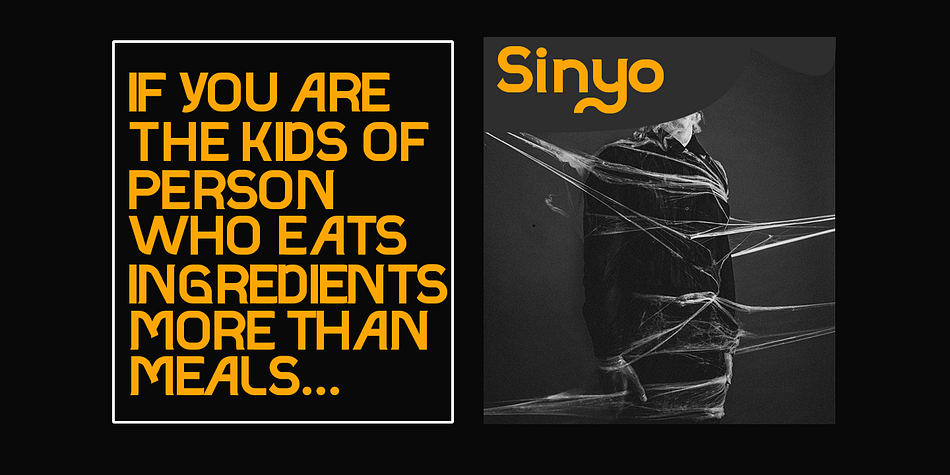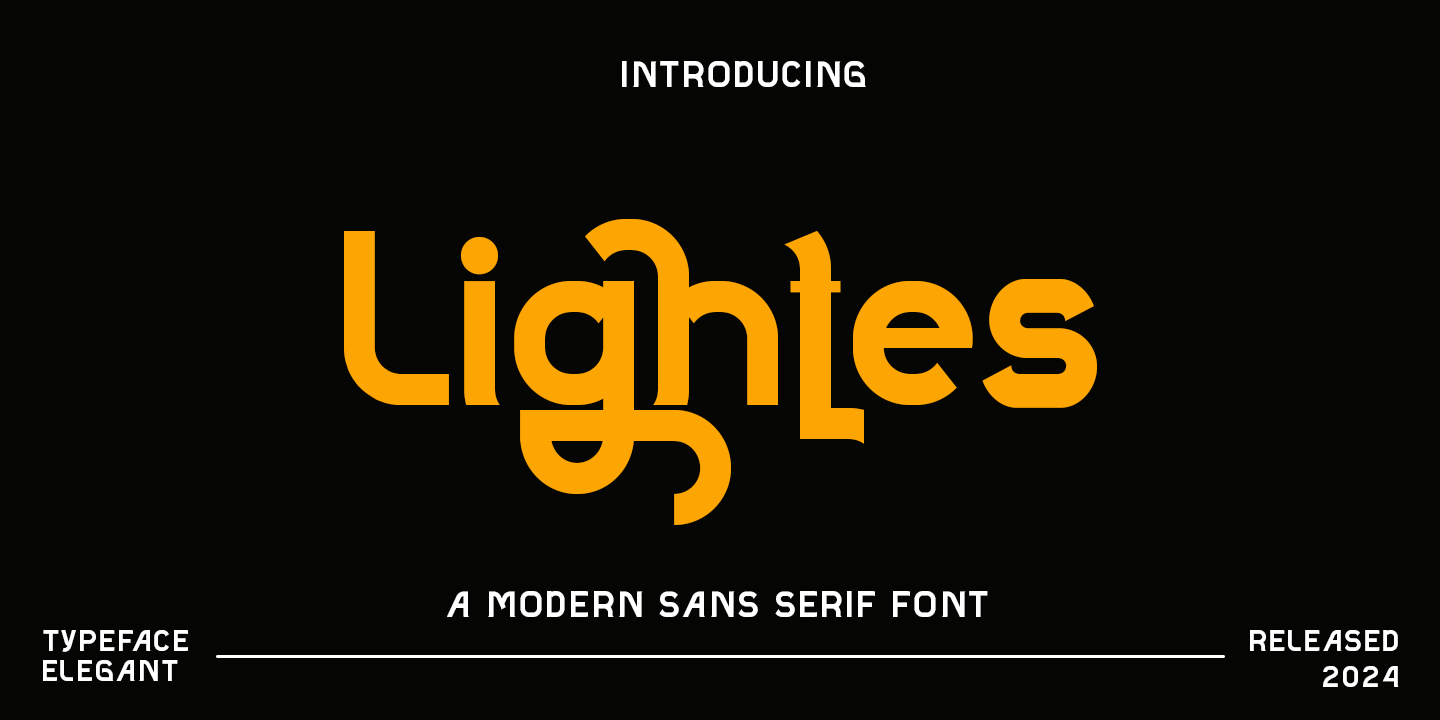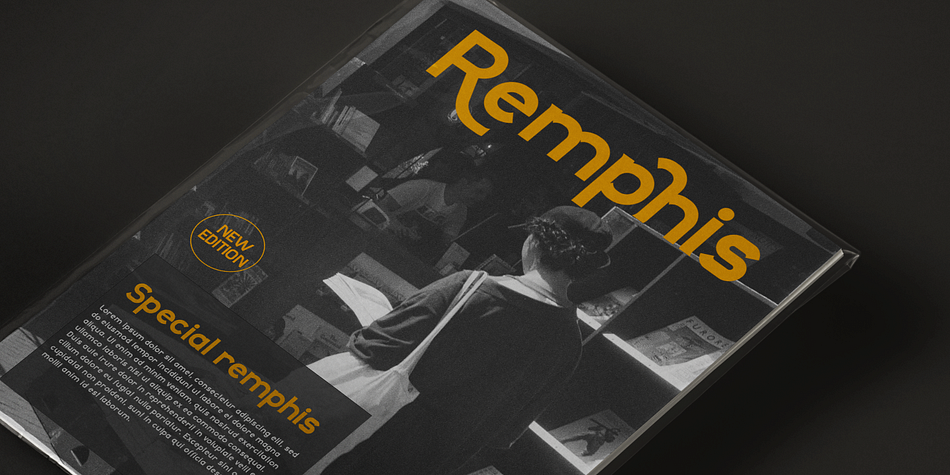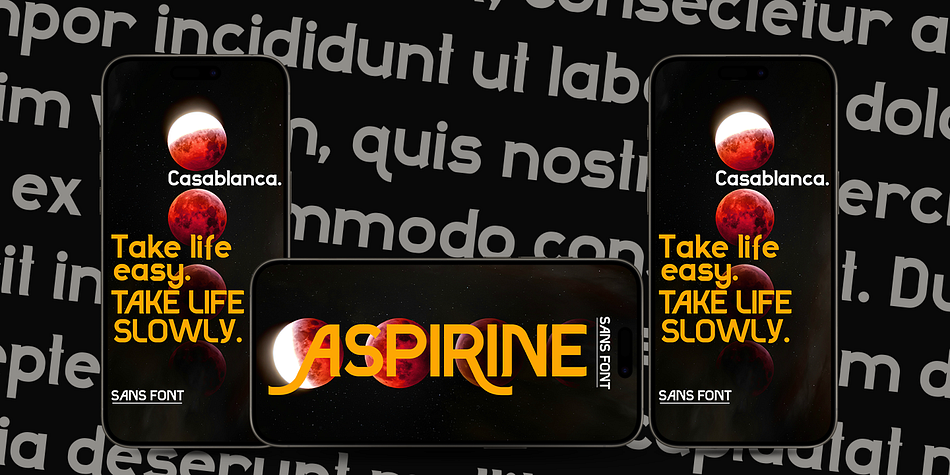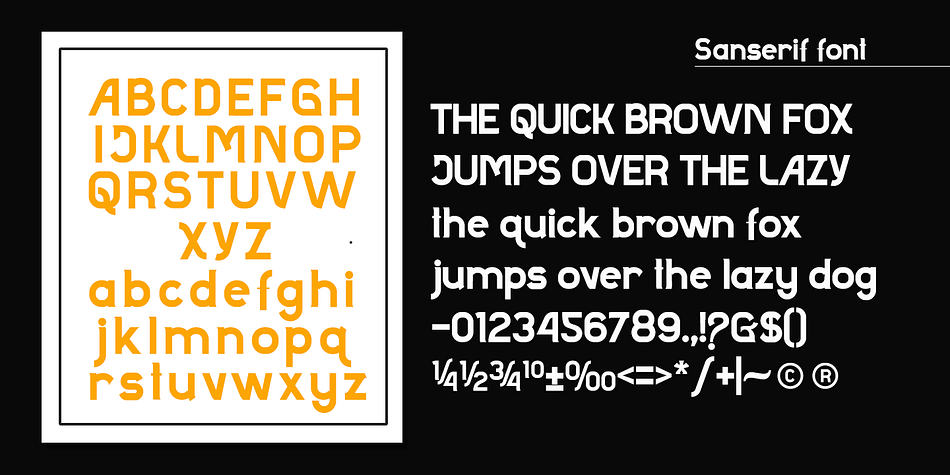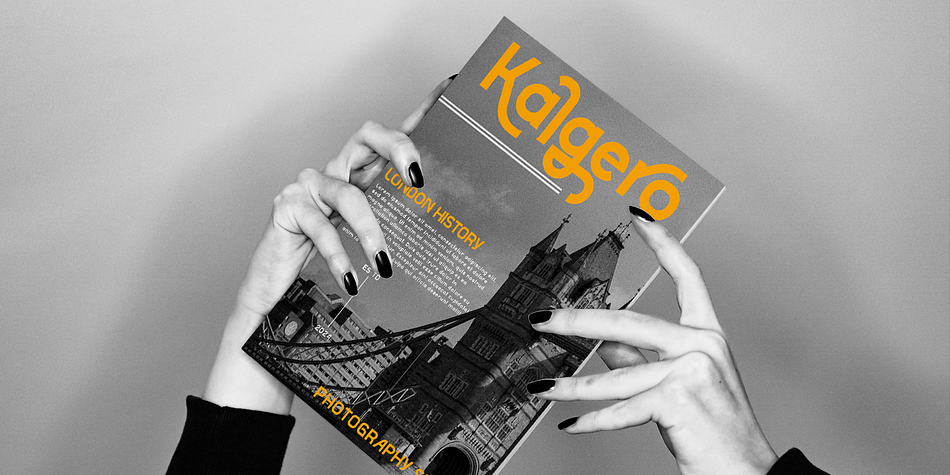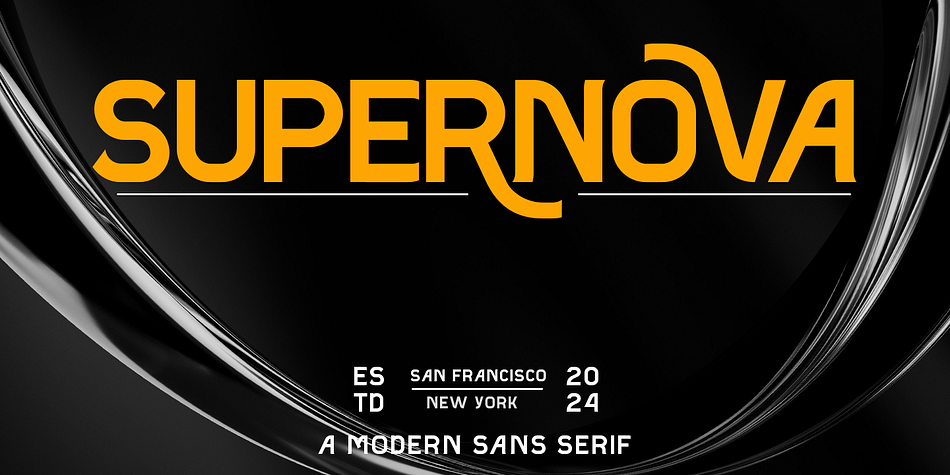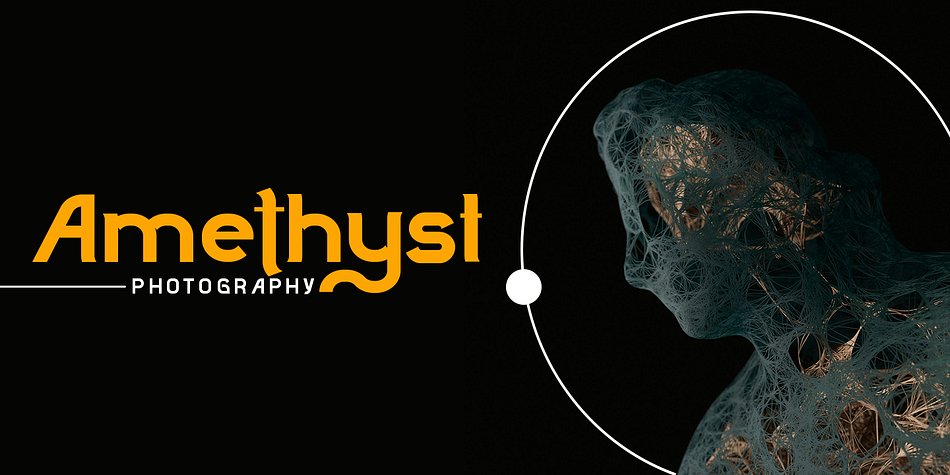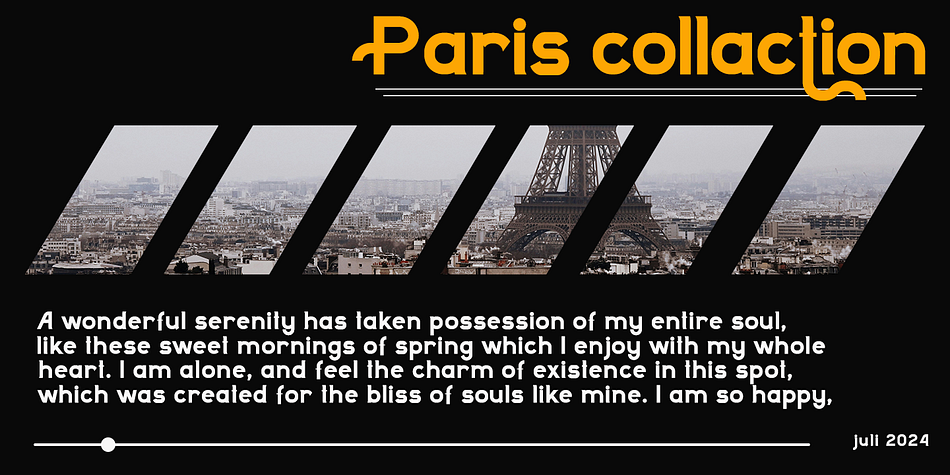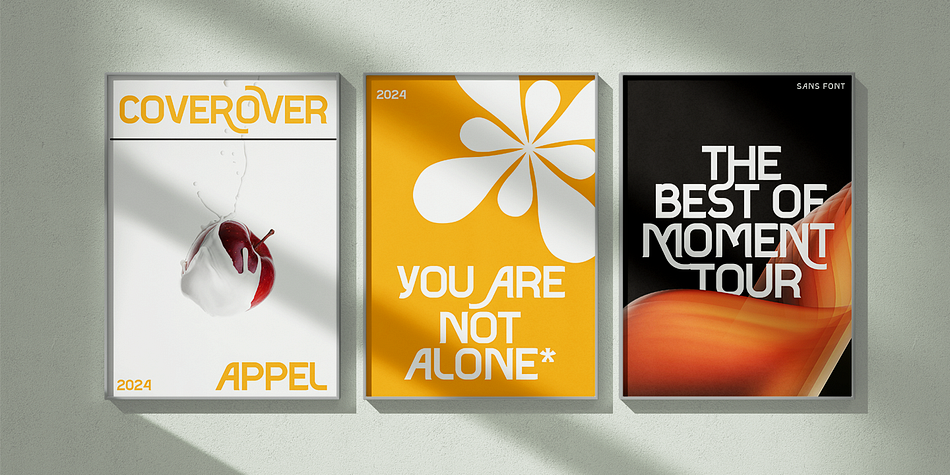
Lightes
Lightes is a retro font family published by Gatype.
Lightes is a light and modern sans-serif font. The characters feature clean and simple lines with slight curves at the corners, providing a soft yet firm impression. The letter spacing is designed to be airy and easy to read, suitable for both long and short texts.
This font is ideal for body text on websites, articles, and professional documents. Additionally, Lightes is perfect for minimalist designs such as posters, logos, and presentations that require an elegant and modern look.